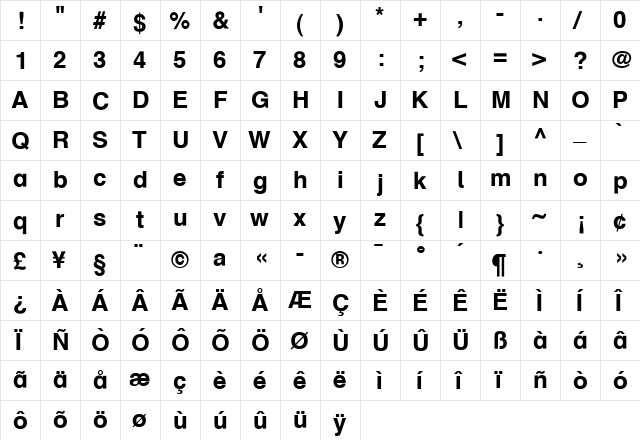
SchulbuchNord Bold
Design Context for SchulbuchNord Typeface
SchulbuchNord takes a measured approach to typography — its balanced proportions and neutral character make it a reliable workhorse for both digital and print work. Its bold stroke weight gives it real presence on the page.